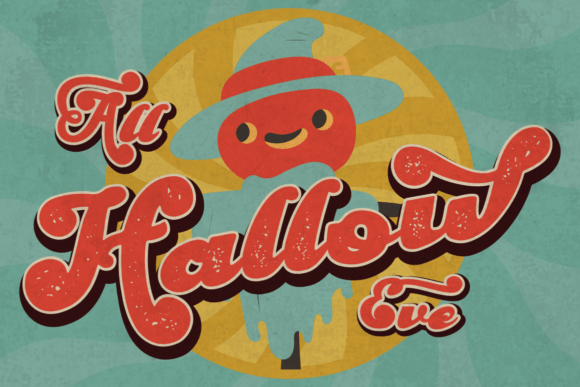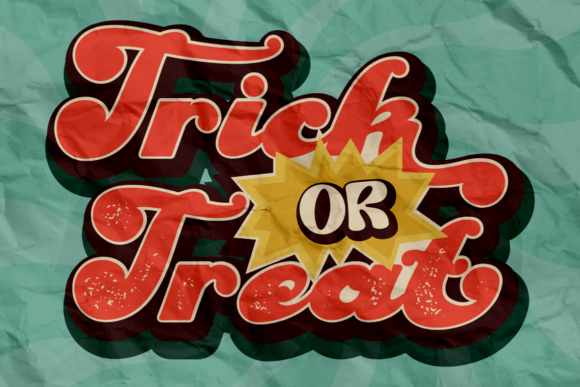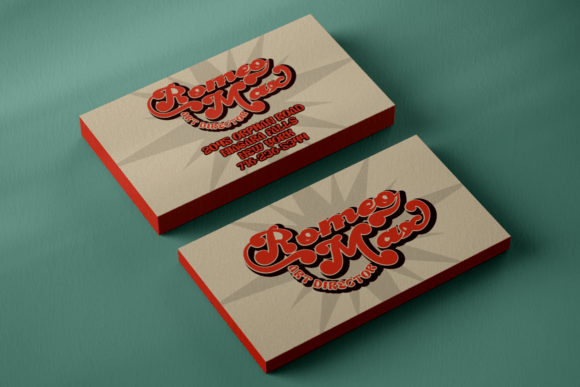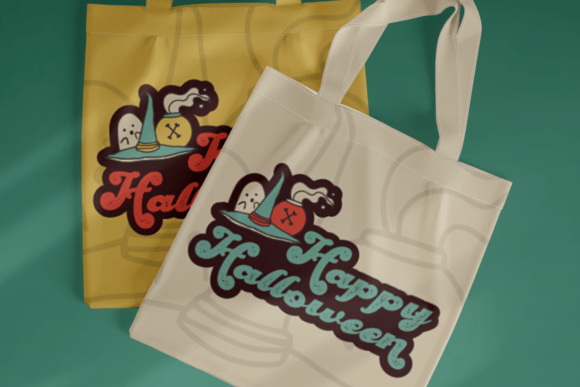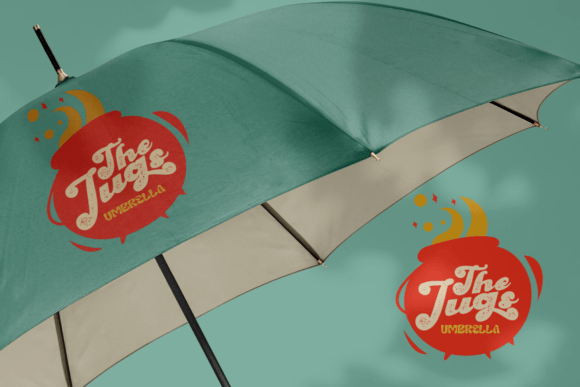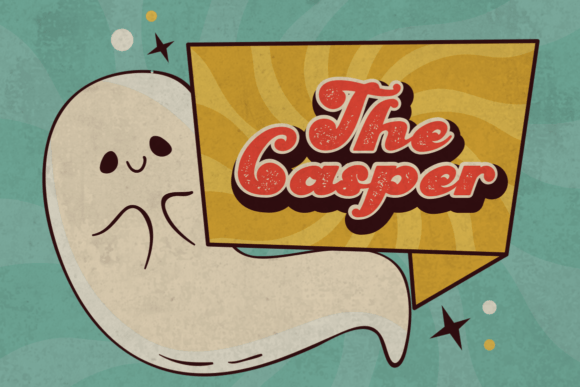
Introduction to Last Show Font
Have you ever found yourself stuck in a creative rut, yearning for a design that exudes the carefree spirit of the 1960s? Maybe you’re working on a project that demands a bold, retro flair, and you can’t seem to find the perfect font to match your vision. That’s where the Last Show Font comes in – a stunning, high-quality design resource that’s sure to transport you back in time.
With its bold, groovy style and vintage script flair, the Last Show Font is the perfect addition to any creative project. Whether you’re working on a logo, branding materials, or a captivating headline, this versatile font is sure to make your designs stand out. And the best part? You can download it for free, with transparent backgrounds and a wide range of alternative characters to choose from.
Last Show Font
- Unique, high-quality design resource for creative projects
Honest Review: Last Show Font
I recently stumbled upon the Last Show Font, and I must say it’s a great addition to any designer’s toolkit. The font is available for free download, which is a big plus for those working on a budget. One of the standout features of this font is its high quality and versatility, making it perfect for a wide range of creative projects.
- ✨ High-quality design: The font has a sleek and modern design that’s sure to elevate any project.
- ✨ Versatile: It’s perfect for use in various creative projects, from logos to brochures.
One of the limitations of the Last Show Font is its lack of customization options. While it’s perfect for general use, it may not be ideal for projects that require a more unique or tailored design.
- ⚠️ Limited customization options: The font may not be suitable for projects that require a high level of customization.
Overall, I’m impressed with the Last Show Font. Its high quality and versatility make it a valuable resource for any designer. While it may have some limitations, it’s definitely worth considering for your next creative project.
Tips for Getting the Most Out of Last Show Font
Last Show Font is ideal for creative projects such as blog posts, social media graphics, and presentations. Its transparent background and high-quality design make it perfect for branding and marketing materials.
Alternatives to Last Show Font
Comic Sans MS is a sans-serif font that is ideal for creating a fun and casual design. It’s perfect for use in children’s books, advertisements, and other creative projects where a playful tone is desired. When to use: For a lighthearted and humorous design, especially when a transparent background is required. How it compares to Last Show Font: While Last Show Font offers a more modern design, Comic Sans MS is a classic choice that is instantly recognizable.
Open Sans is a clean and modern sans-serif font that is great for use in a variety of design projects, from business cards to websites. It’s available for free download and is a high-quality design resource that is perfect for creating a professional and sleek design. When to use: For a clean and minimalist design, especially when a transparent background is not required. How it compares to Last Show Font: Open Sans is a more versatile font that can be used in a wider range of design projects, but it may not offer the same level of creativity as Last Show Font.